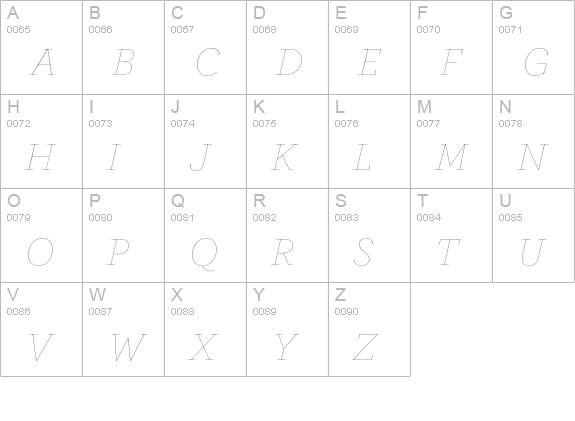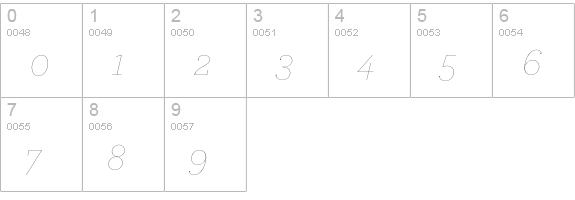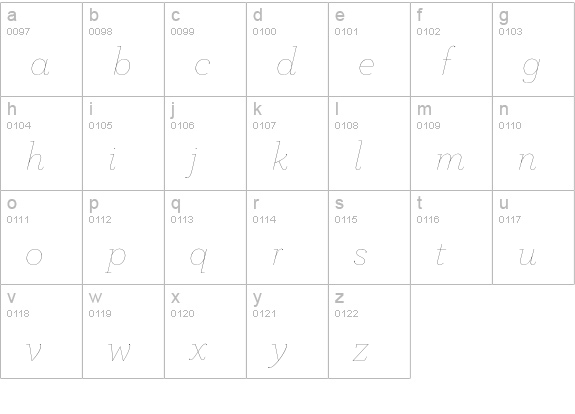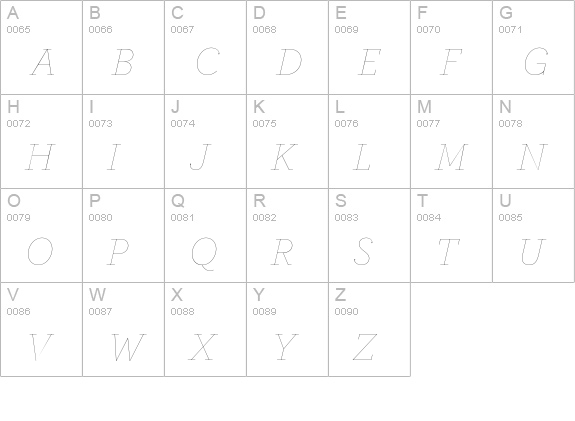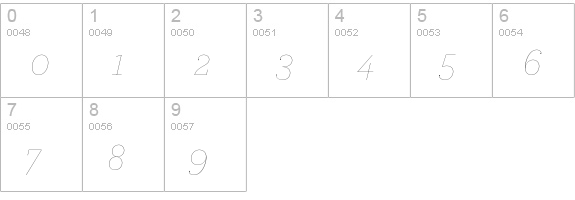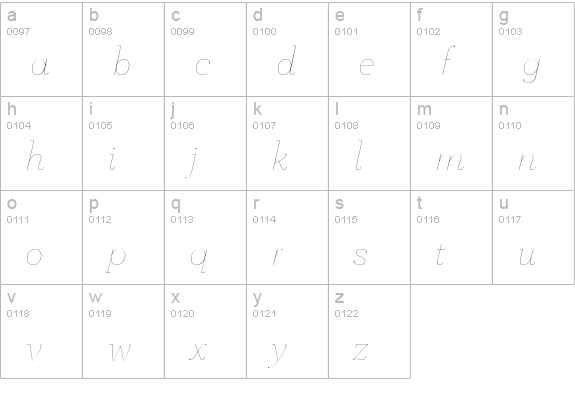
Archer Hairline Italic Font Details
Archer Hairline Italic is an exceptionally fine, almost invisible, italic variant in the Archer typeface family \xE2\x80\x94 well suited to high-end editorial, fashion, and luxury display use.
Archer Hairline Italic font exudes elegance and sophistication with its delicate and slender strokes. The graceful curves of this typeface add a touch of refinement to any design project, making it perfect for conveying a sense of modern luxury and style. The italicized form of Archer Hairline adds a dynamic and fluid quality to text, making it ideal for use in fashion magazines, high-end branding, and upscale invitations. What makes Archer Hairline Italic font even more appealing is that it is available for free download at FontsMarket.com. This means that you can effortlessly enhance your creations with this exquisite typeface without any cost involved. Don't miss out on the opportunity to elevate your designs with the timeless beauty of Archer Hairline Italic font - download it today and experience the luxury of premium typography at your fingertips.